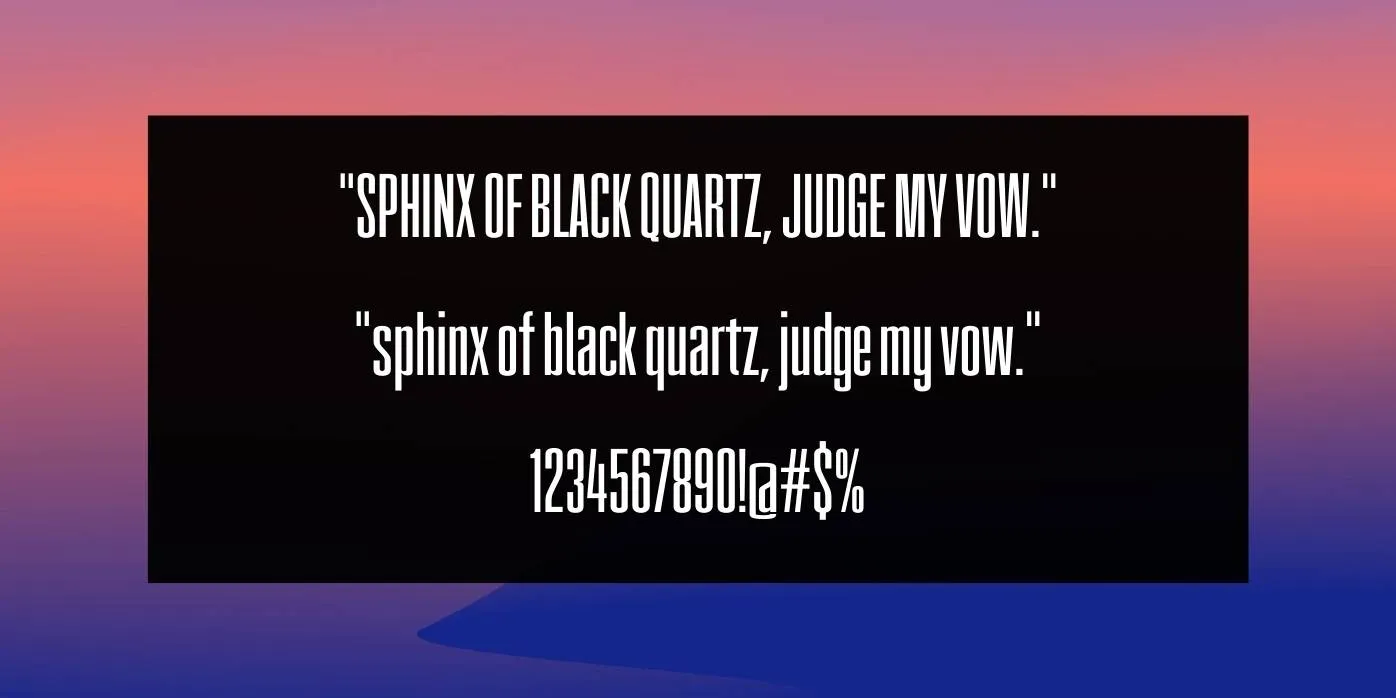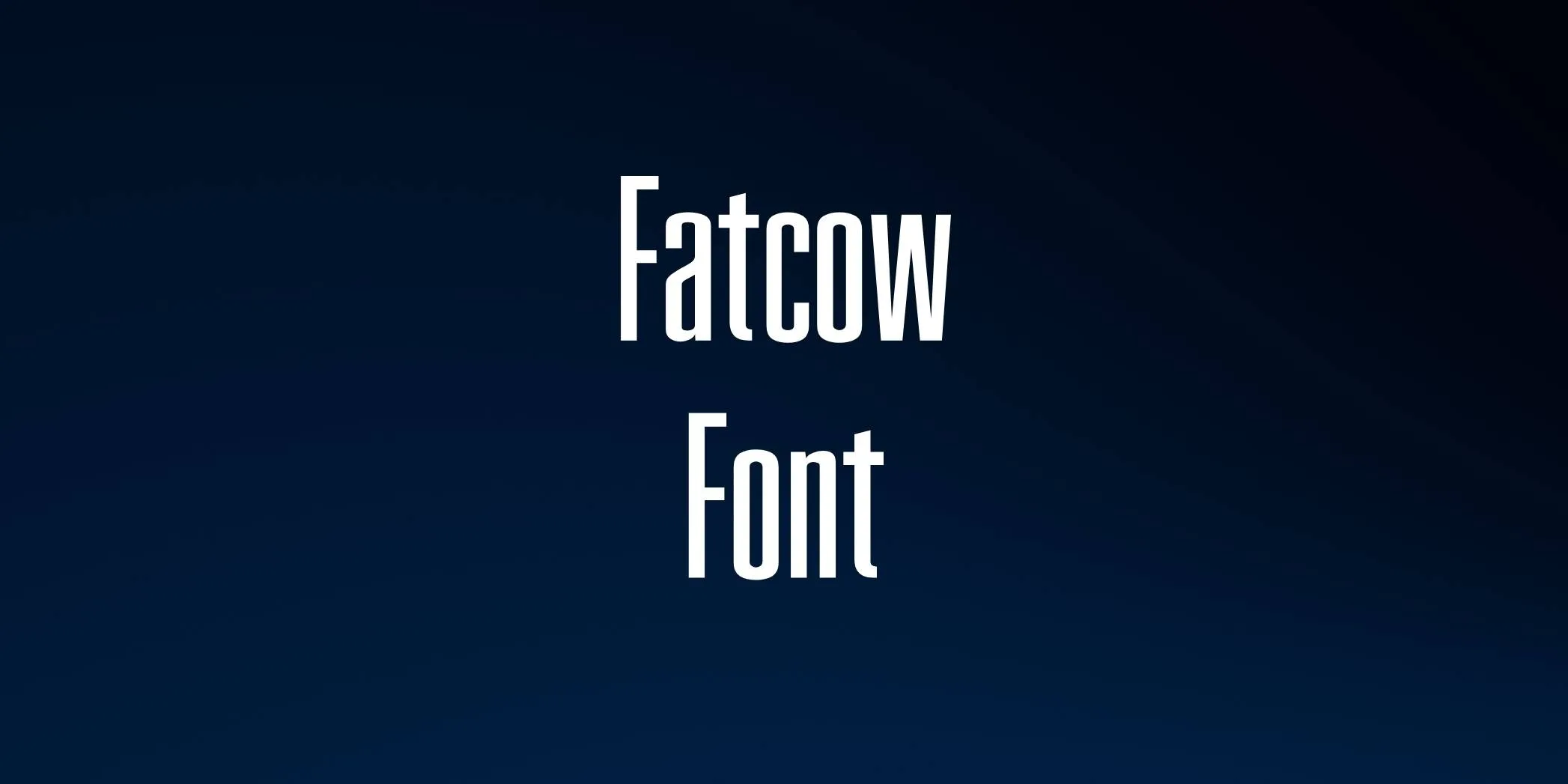
Fatcow Font
Fatcow Font is a sans-serif typeface that was created by David Kerkhoff in 2006. The name Fatcow comes from the word “fat” and “cow”, which are two things that are often associated with each other. The font is a sans-serif typeface that has a unique design. It is one of the few fonts that have been specifically designed for use on the web.
It is a sans-serif typeface, which means that it does not have any decorative elements. This makes it perfect for use on websites where space is limited. The font is also designed to be easy to read, even in small sizes. The Font is available in both regular and bold weights.